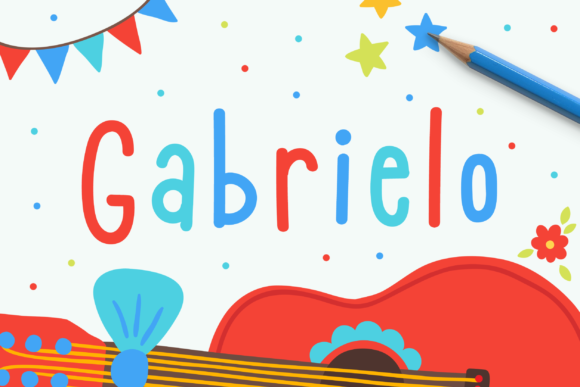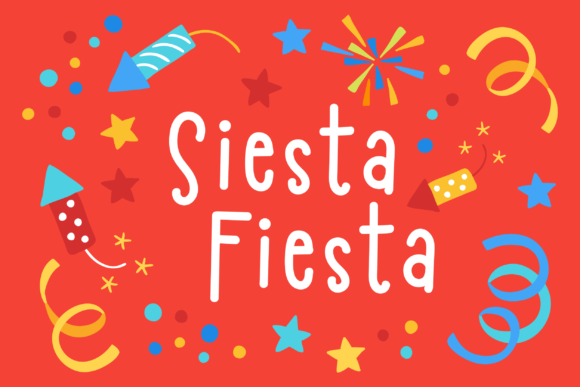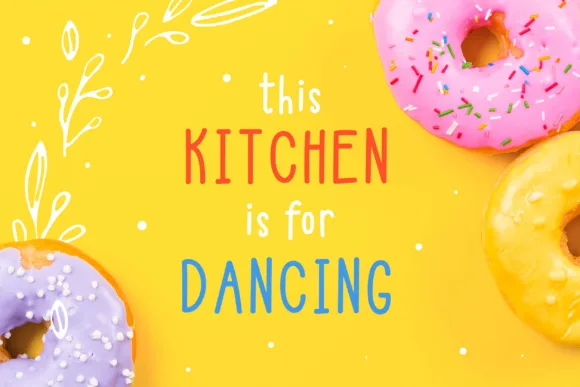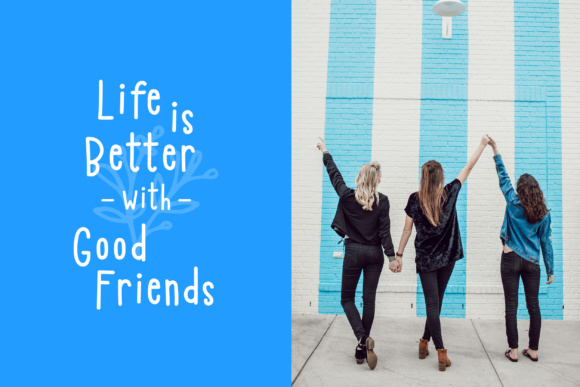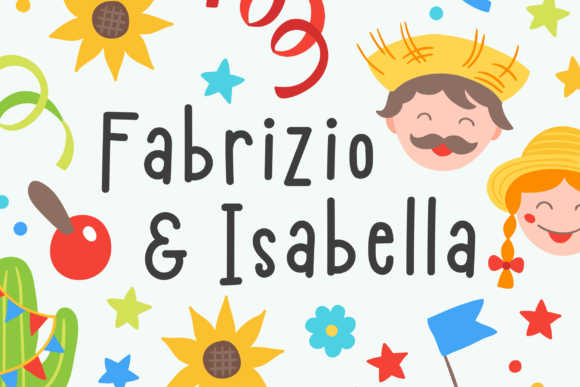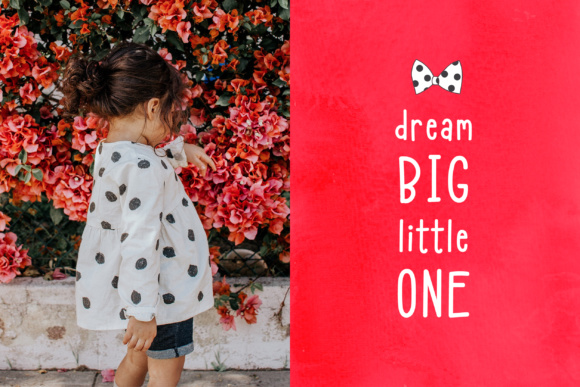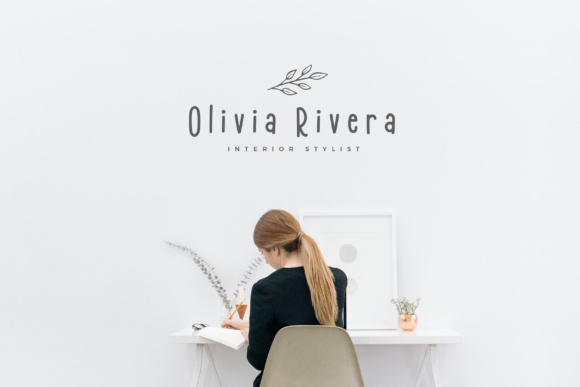
HomeScript FontsGabrielo Font Script Fonts Gabrielo Font FacebookXPinterestWhatsApp Gabrielo Font Poster 2 Gabrielo Font Poster 3 Gabrielo Font Poster 4 Gabrielo Font Poster 5 Gabrielo Font Poster 6 Gabrielo Font Poster 7 About Gabrielo Font The Gabrielo is a fun & friendly typeface with a monoline style. It’s perfect for any design & craft projects! DOWNLOAD NOW People also explored Bellaboo Font Kids Love Animals Font Grunge Cobweb Font Kalila Script Font Gebar Font Whimsical Font Christmas Be Happy Font Laminaria Font Chiangmai Hostel Font 279 0 TagsGabrielo Font Previous articlePhilosophy FontNext articleGlossy Font LEAVE A REPLY Cancel reply Comment: Please enter your comment! Name:* Please enter your name here Email:* You have entered an incorrect email address! Please enter your email address here Website: Save my name, email, and website in this browser for the next time I comment. Personal Use Free Rolling Door Personal Use Free Read more about this font Bally Girl Personal Use Free Read more about this font Engine Personal Use Free Read more about this font Eits Personal Use Free Read more about this font BLOG Top 7 Google Fonts Alternatives for Faster and Privacy-Friendly Web Design (2025) Top 7 Google Fonts Alternatives for Faster and Privacy-Friendly Web Design (2025) When it comes to web typography, Google Fonts has long been the go-to... Using Fonts in Digital Marketing: Tips to Strengthen Your Brand Identity To increase your work productivity, choose the most readable fonts. The 10 Best Handwriting Fonts to Add Personality to Your Designs